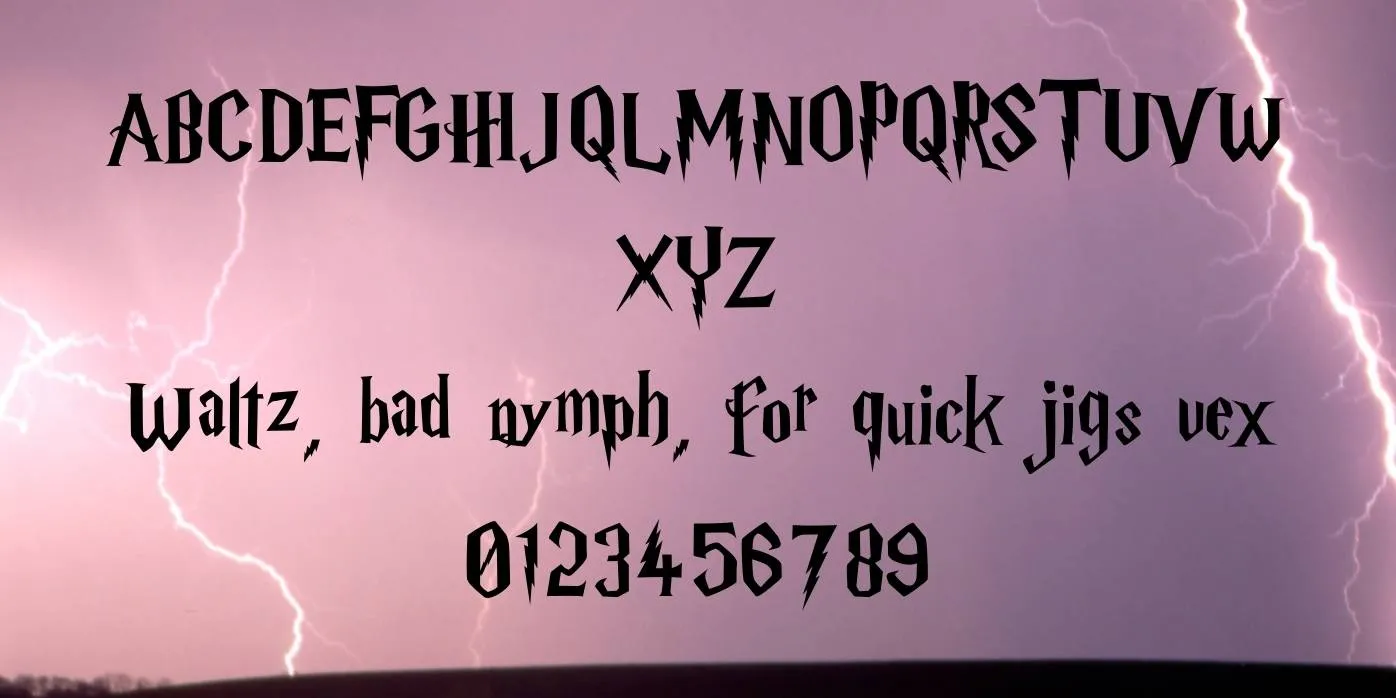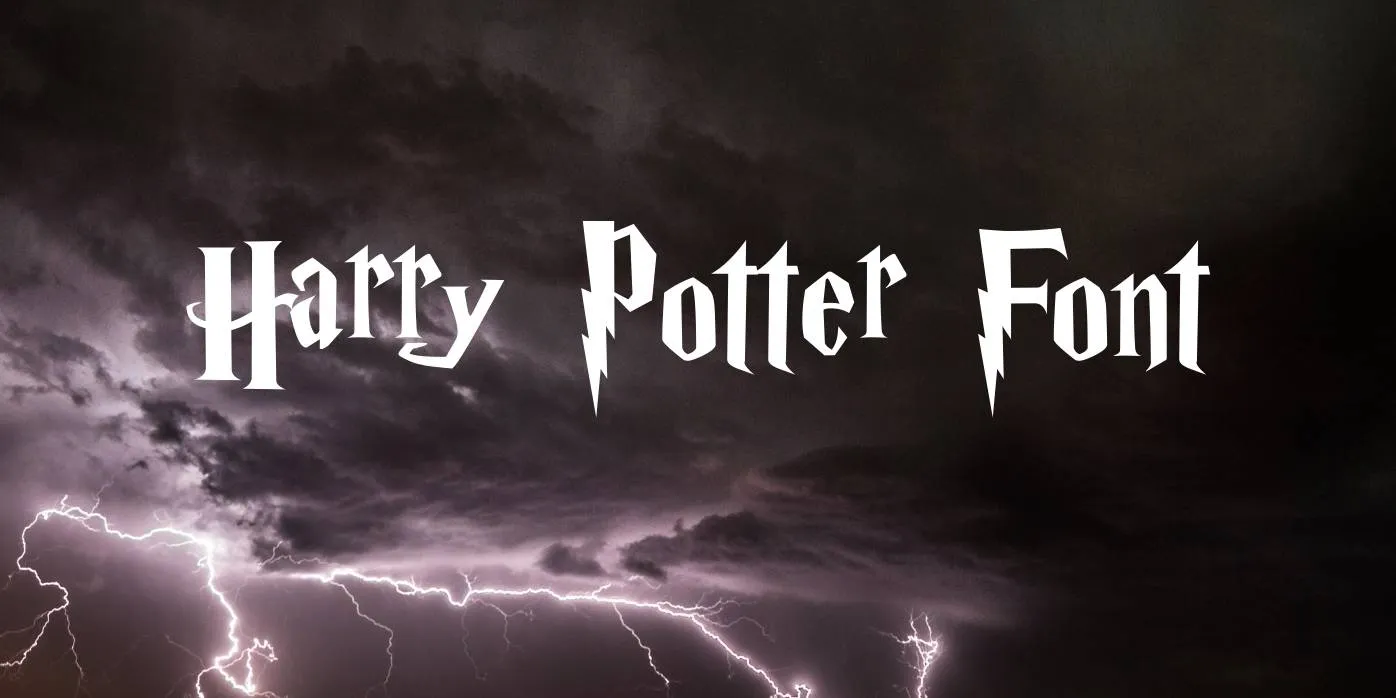
Harry Potter Font
Let’s present a very popular and marvelous font that is known as Harry Potter Font. This fascinating font was designed by very popular designer Phoenix Phonts. This attractive font is based on a famous novel that was written by a well-known author named J. K.
Rowling. This novel earns massive fame and popularity. There is a different unique number of fonts that are used on the Harry Potter book cover. It presents a charming look in front of all users and makes it impressive.
This font family is available in different styles.  Lumos typeface is frequently used for making various types of logos with the pairing of this font family. This glorious font has unique four styles and a great number of characters that provide an interface to use it easily in  Arabella Font. This font belongs to the Fancy Font family.